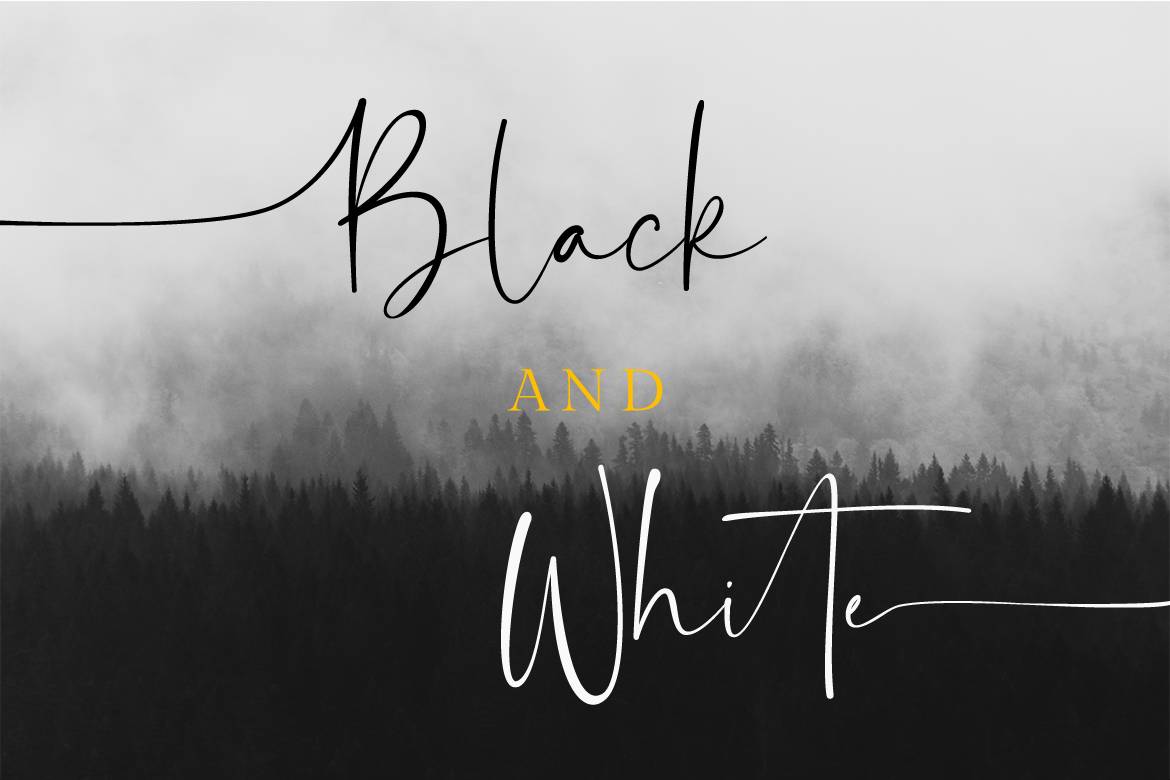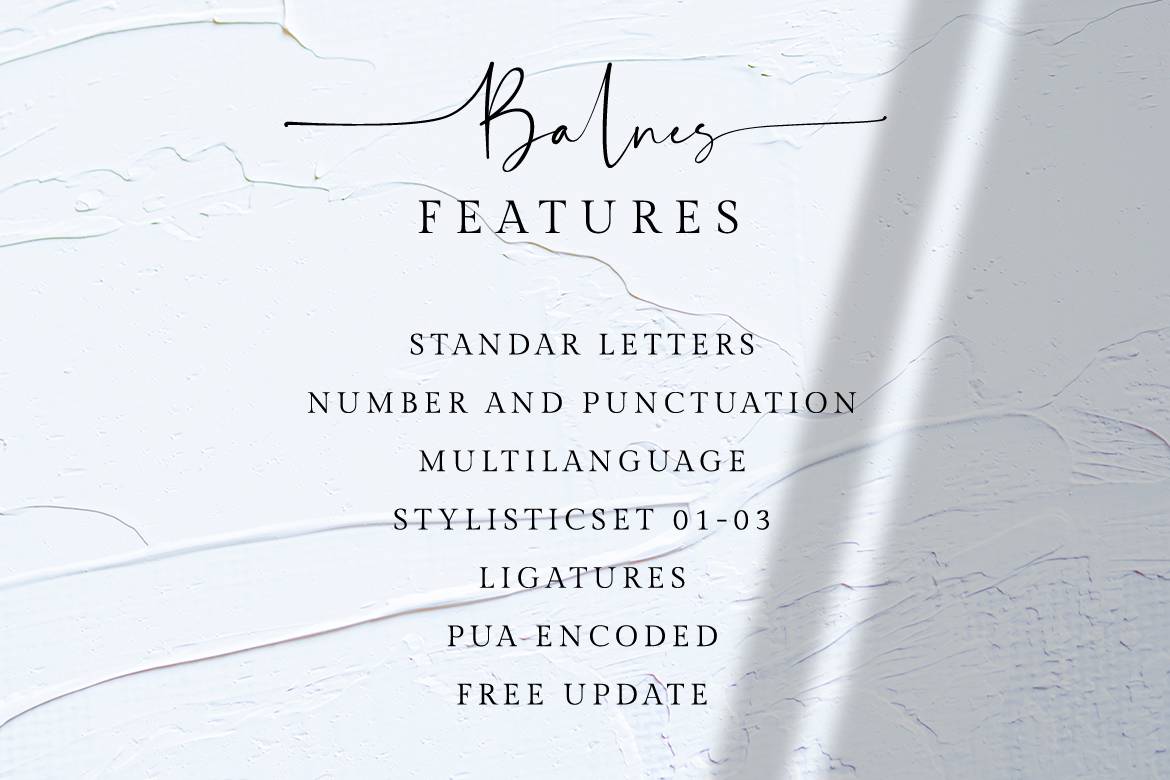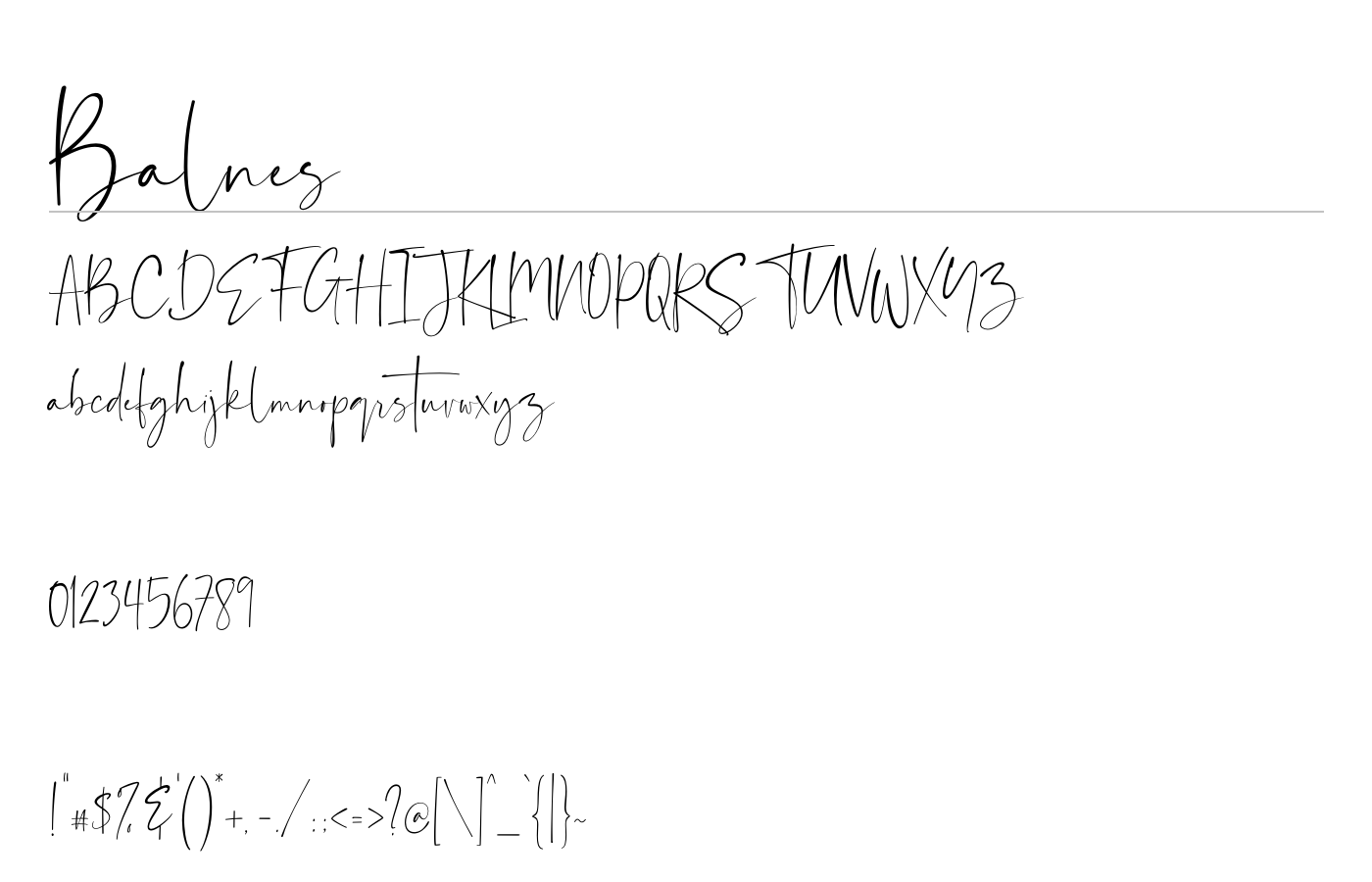
Balnes is a delicate, handwritten script font with a thin, airy stroke and a playful, slightly irregular character style that mimics natural penmanship. Its tall, narrow letterforms with a mix of elegant loops and subtle flourishes make it ideal for creative, personal branding, invitations, and feminine or artistic design projects where a light, graceful touch is desired. This font works best for headlines or decorative text, adding a distinctive, stylish flair without heavy formality.
Balnes Font
About Balnes Font